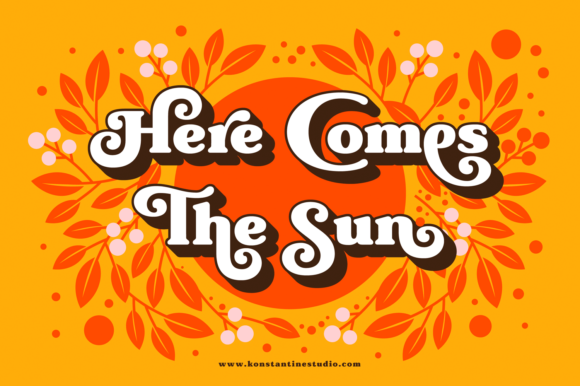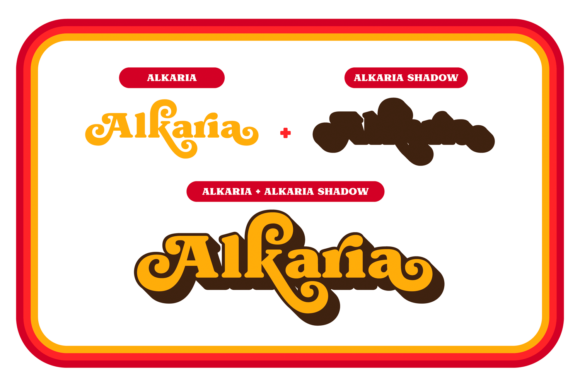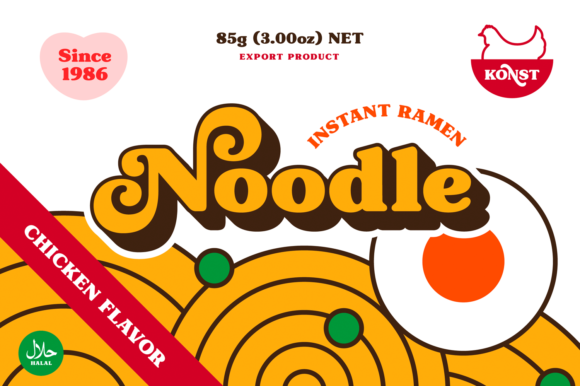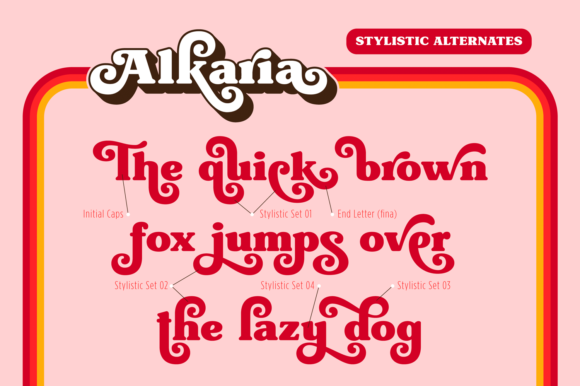
Introducing Alkaria Font: A Gorgeous Retro Display Font
Are you looking for a font that can add a touch of nostalgia and personality to your designs? Look no further than Alkaria Font, a stunning retro display font that’s perfect for crafters, designers, and anyone looking to add some vintage flair to their work. In this article, we’ll dive into the features and benefits of Alkaria Font, and explore how it can elevate your designs to the next level.
A Strong, Confident, and Dynamic Font
Alkaria Font is a gorgeous and retro display font that reads as strong, confident, and dynamic. Its unique design makes it perfect for headlines, titles, and any other text that needs to make a statement. Whether you’re working on a branding project, a packaging design, or a marketing campaign, Alkaria Font is sure to grab attention and leave a lasting impression.
Add Tons of Nostalgic Character to Your Designs
One of the standout features of Alkaria Font is its ability to add tons of nostalgic character to your designs. With its retro vibe and classic feel, this font is perfect for designers who want to evoke a sense of nostalgia and timelessness in their work. Whether you’re creating a vintage-inspired design or simply want to add some personality to your text, Alkaria Font is the perfect choice.
Another great feature of Alkaria Font is that it’s PUA (Private Use Area) encoded, which means you can access all of the glyphs and swashes with ease. This makes it easy to customize your text and add unique touches to your designs. With Alkaria Font, you can easily access a range of alternative characters, ligatures, and swashes, giving you endless creative possibilities.
Alkaria Font is perfect for designers and crafters who want to add a touch of personality and nostalgia to their work. Whether you’re working on a commercial project or a personal craft project, this font is sure to inspire and elevate your designs. With its strong, confident, and dynamic design, Alkaria Font is perfect for a range of applications, from branding and packaging to signage and marketing materials.
Key Features of Alkaria Font
- Retro display font: Alkaria Font has a unique retro vibe that’s perfect for adding nostalgia and personality to your designs.
- Strong, confident, and dynamic: This font reads as strong, confident, and dynamic, making it perfect for headlines and titles.
- PUA encoded: Alkaria Font is PUA encoded, making it easy to access all of the glyphs and swashes.
- Perfect for designers and crafters: This font is perfect for designers and crafters who want to add a touch of personality and nostalgia to their work.
Tips for Using Alkaria Font
Here are a few tips for using Alkaria Font in your designs:
- Use it as a headline font: Alkaria Font is perfect for headlines and titles, where its strong and confident design can really make an impact.
- Experiment with swashes and glyphs: With its PUA encoding, Alkaria Font offers a range of creative possibilities. Experiment with different swashes and glyphs to add unique touches to your designs.
- Pair it with complementary fonts: Alkaria Font pairs well with a range of complementary fonts. Try pairing it with a clean sans-serif font for a bold and modern look.
| Font Name | Alkaria Font |
| Author | konstantinestudio |
In conclusion, Alkaria Font is a gorgeous and retro display font that’s perfect for designers and crafters who want to add a touch of nostalgia and personality to their work. With its strong, confident, and dynamic design, PUA encoding, and endless creative possibilities, Alkaria Font is sure to elevate your designs to the next level. So why wait? Download Alkaria Font today and start creating stunning designs that are sure to impress!